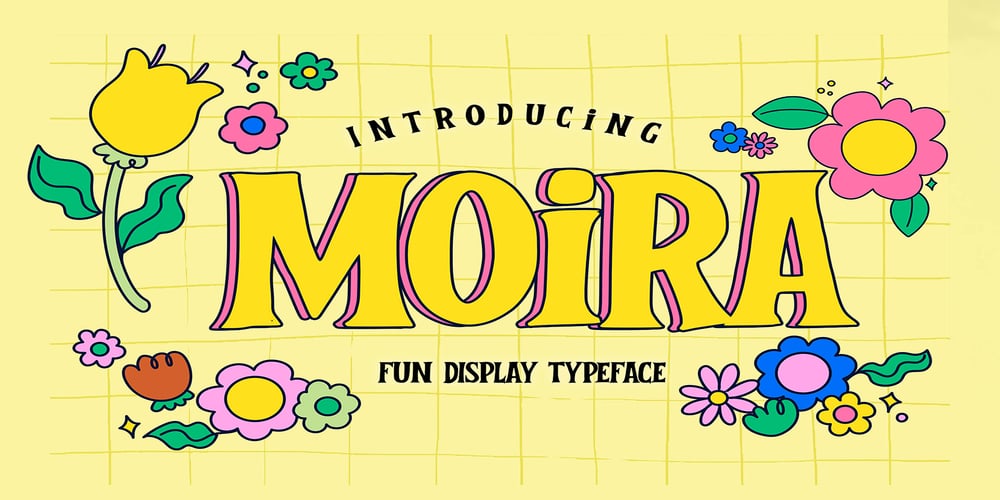
Moira Font Family was designed by Abdul Malik Wisnu, Anang Fibriyanto and published by Gassstype. Moira contains 1 styles and family package options. Hello Everyone, introduce our new product Font MOIRA is a Fun Display Typeface .This is a Textured Natural Style and classy style with a clear style and dramatic movement.This font MOIRA is great for your next creative project such as logos, printed quotes, invitations, cards, product packaging, headers, Logotype, Letterhead, Poster.That is has charming, authentic and relaxed characteristic more natural look to your text You can activate Alternate OpenType panel.